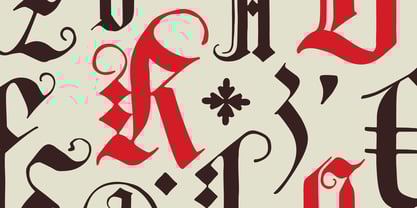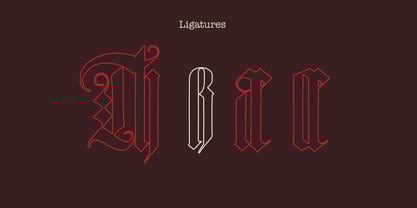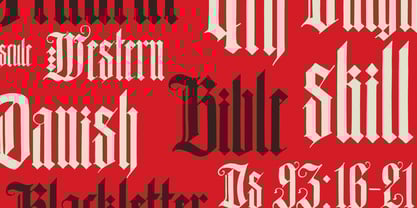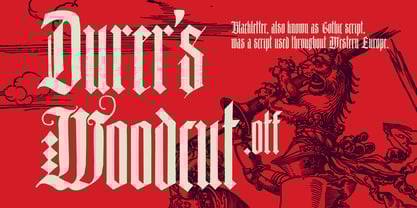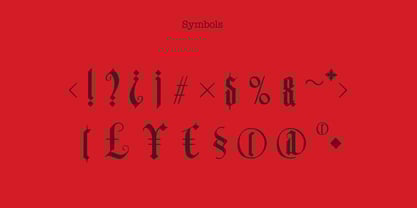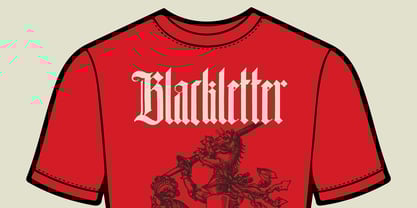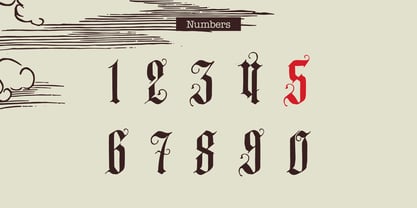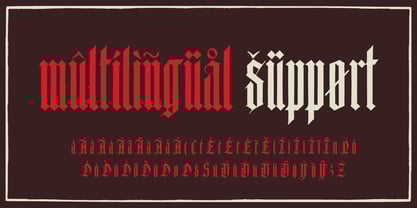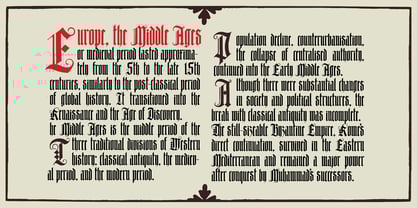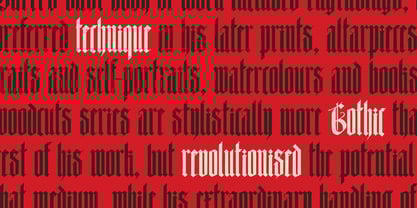
Durers Woodcut
by Kaer
The Durers Woodcut Font Family was designed by Roman Korolev and published by Kaer. Durers Woodcut contains 1 styles. More about this family
This font was inspired by Albrecht Dürer's Instruction of the measurement, published in 1525 in Nuremberg. As usual, I’ve added a lot of modern symbols and glyphs.
* Uppercase and lowercase
* Multilingual support
* Numbers
* Symbols
* Punctuation
* Ligatures